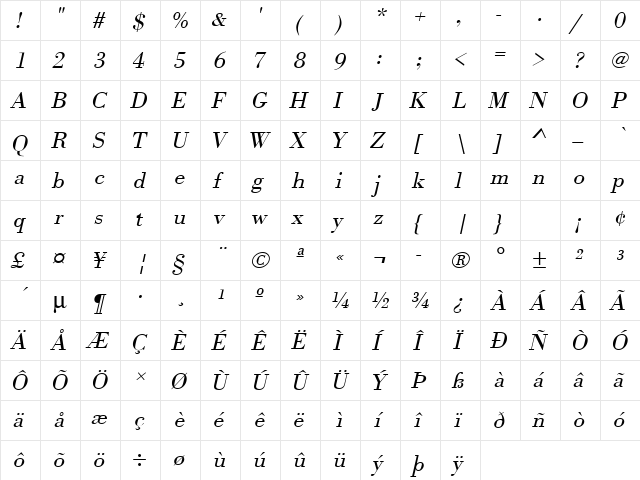
URWBodoniTLigWid Oblique
Design Context for URWBodoniTLigWid Typeface
URWBodoniTLigWid offers clean, dependable letterforms without strong stylistic allegiance, making it a practical choice for designers who need flexibility. The slanted form adds forward momentum and visual energy.
Pro Tip: Use URWBodoniTLigWid for emphasis, pull quotes, and subheadings where its slanted energy can add rhythm to the layout.